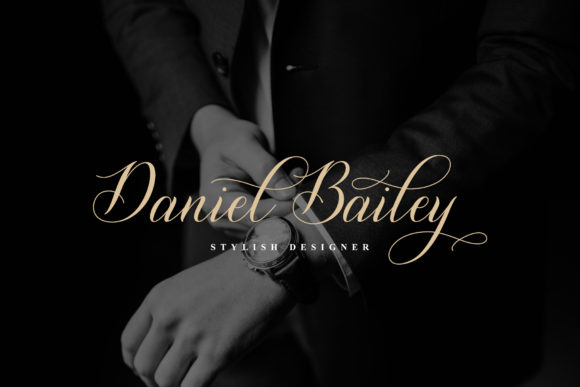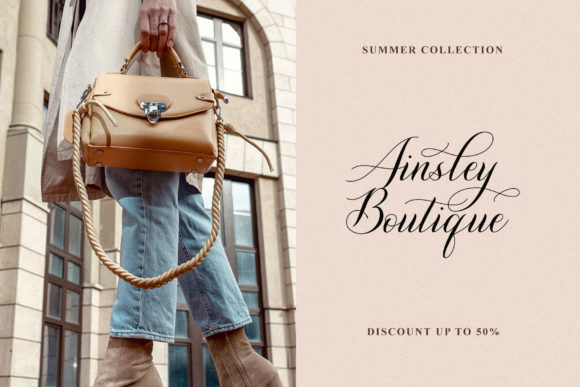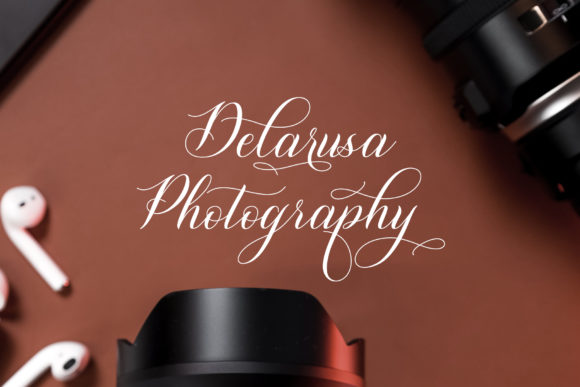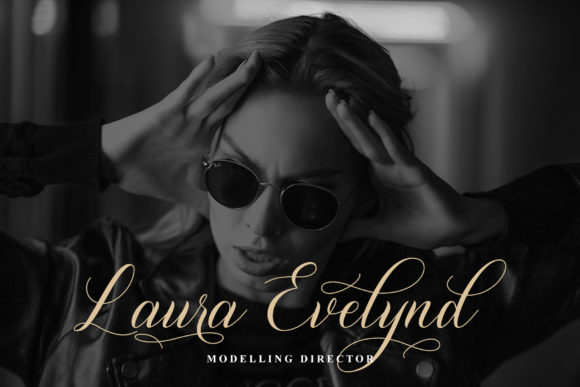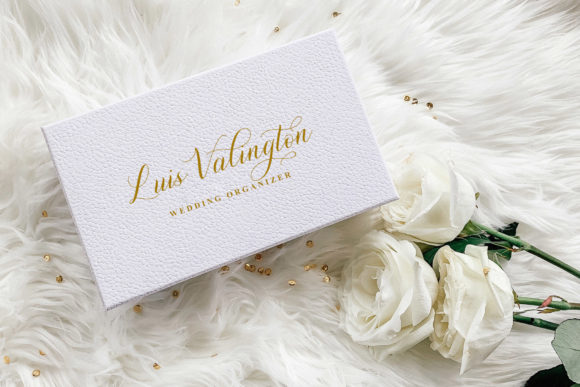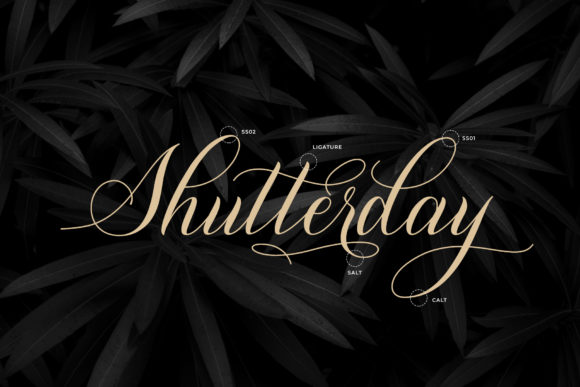
Introduction to Shutterday Font
Have you ever found yourself staring at a blank canvas, trying to bring your creative vision to life? The blank page can be daunting, but the right design resource can be the spark that sets your imagination ablaze. For designers, the perfect font can elevate a project from ordinary to extraordinary.
One such font that has captured the hearts of many designers is the Shutterday Font. This lovely handwritten font boasts a beautiful flow that adds a touch of elegance to any creative project. Its balanced and varied strokes make it perfect for a wide range of designs, from invitations to blog posts.
Key Features of Shutterday Font
- High-quality design resource with a unique aesthetic, perfect for creative projects.
- Features a transparent background, making it ideal for use on images and other design elements.
- Designed to be versatile and easy to use, making it a great addition to any design collection.
- Part of a larger design family, offering a range of styles and variations to suit different creative needs.
Honest Review: Shutterday Font
As a designer, I’m always on the lookout for high-quality design resources to elevate my creative projects. Recently, I had the chance to try out the Shutterday Font, and I’m excited to share my thoughts.
- ✨ Beautiful, unique letterforms that add a touch of personality to any design.
- ✨ Compatible with a wide range of creative projects, from logos to editorial content.
- ✨ High-quality design that looks great on both light and dark backgrounds.
- ⚠️ Limited character set, which may not be ideal for projects that require a wide range of special characters.
- ⚠️ Not ideal for use with transparent backgrounds, as the font’s design can become lost in the background.
Overall, I’m impressed with the Shutterday Font and its potential to add a unique touch to creative projects. While it may have some limitations, its high-quality design and free download make it a valuable resource for designers.
Tips for Getting the Most Out of Shutterday Font
To get the most out of the Shutterday Font, be sure to use it with a transparent background to take full advantage of its unique design. You can also experiment with different font sizes and styles to add visual interest to your design projects.
The Shutterday Font is perfect for a variety of creative projects, including social media graphics, blog posts, and presentations. It’s also a great choice for designers looking for a unique and high-quality design resource.